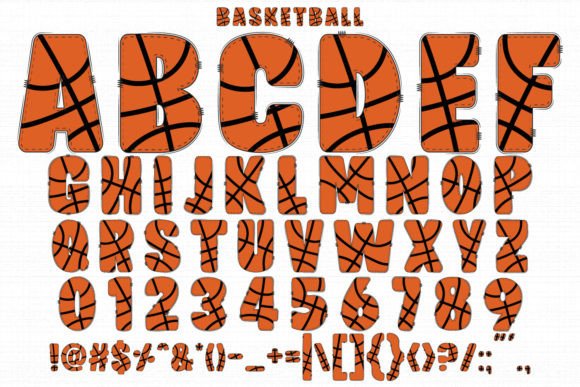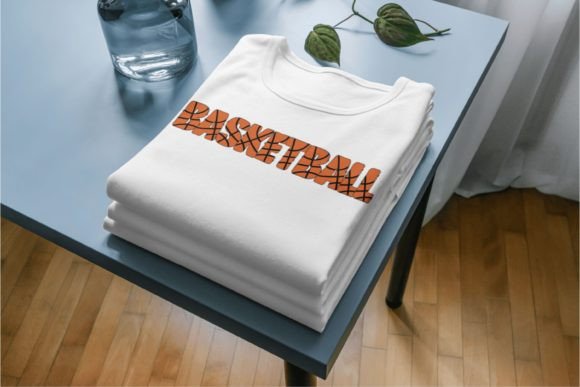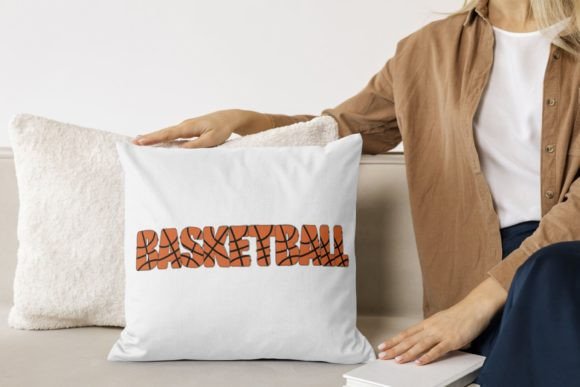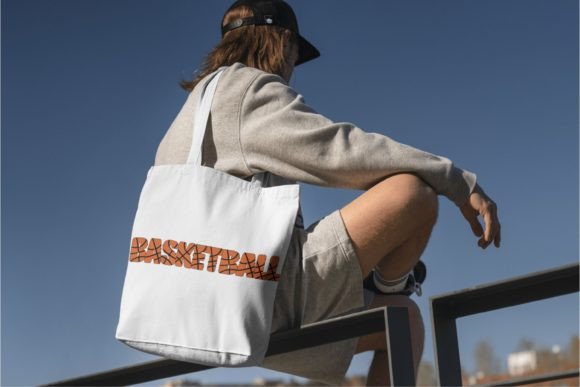
Basketball Font: Elevate Your Designs with a Unique Touch
Are you looking for a font that can add a playful and creative twist to your designs? Look no further than the Basketball Font! This decorative font features a unique basketball skin texture that makes it perfect for nature-themed designs, children’s projects, and a wide range of other creative endeavors.
A Versatile Font for Various Projects
The Basketball Font is an incredibly versatile font that can be used in a variety of projects. Whether you’re designing a logo, creating a children’s book, or making craft projects, this font is sure to be an asset to your font library. Its unique texture and playful feel make it perfect for designs that require a fun and creative touch.
Perfect for Nature-Themed Designs and Children’s Projects
The Basketball Font is particularly well-suited for nature-themed designs and children’s projects. Its unique texture and playful feel make it perfect for designs that require a fun and creative touch. Whether you’re creating a logo for a children’s sports team or designing a craft project for kids, this font is sure to be a hit.
Tips for Using the Basketball Font
Here are a few tips for using the Basketball Font in your designs:
• Use it for headlines and titles to add a playful touch to your designs.
• Pair it with other fonts to create a unique and eye-catching design.
• Experiment with different colors and textures to add depth and interest to your designs.
• Use it for craft projects, such as making signs, banners, and other decorative items.
Why You’ll Love the Basketball Font
Here are just a few reasons why you’ll love the Basketball Font:
• Unique texture: The basketball skin texture gives this font a one-of-a-kind look that’s sure to stand out.
• Playful feel: The font has a fun and playful feel that’s perfect for designs that require a creative touch.
• Versatility: The font can be used in a wide range of projects, from logos and branding to craft projects and children’s books.
The Basketball Font is a unique and versatile font that’s perfect for designers and crafters looking to add a playful touch to their designs. With its basketball skin texture and playful feel, this font is sure to be an asset to your font library. Whether you’re designing a logo, creating a children’s book, or making craft projects, the Basketball Font is a great choice. So why wait? Download the Basketball Font today and start elevating your designs with a unique touch!